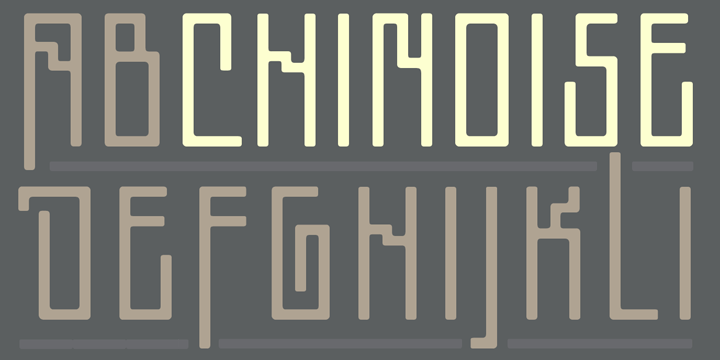
Chinoise™
from CastleType
Design Credits
Designed by: Jason Castle
Designed when: 2008
Design owned by: CastleType
Chinoise
Chinoise, a CastleType original, is based on hand lettering that is reminiscent of a style of ancient Chinese square-cut ideograms (perhaps cut in wood), and therefore the suggestive name “Chinoise” for this new design.
There are alternate forms for each letter in the lowercase. Although square-cut, all corners of the letters are slightly rounded to give a more organic, weather-worn look.
Uppercase only with support for most European languages, including modern Greek, and languages that use the Cyrillic alphabet.